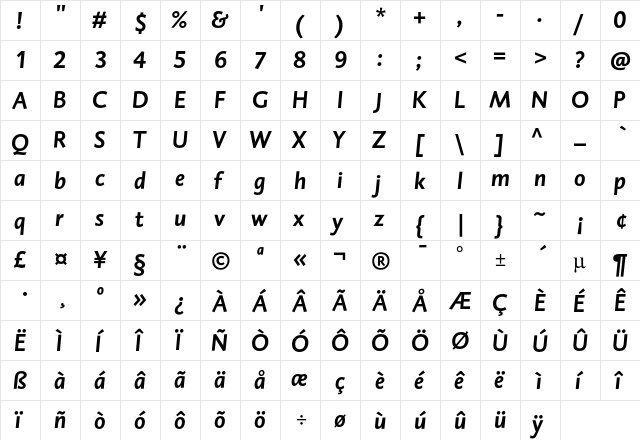
DTLCaspariT BoldItalic
Design Context for DTLCaspariT Typeface
DTLCaspariT offers clean, dependable letterforms without strong stylistic allegiance, making it a practical choice for designers who need flexibility. The slanted form adds forward momentum and visual energy. The heavy weight commands attention and anchors typographic hierarchies.
Pro Tip: Use DTLCaspariT for emphasis, pull quotes, and subheadings where its slanted energy can add rhythm to the layout.